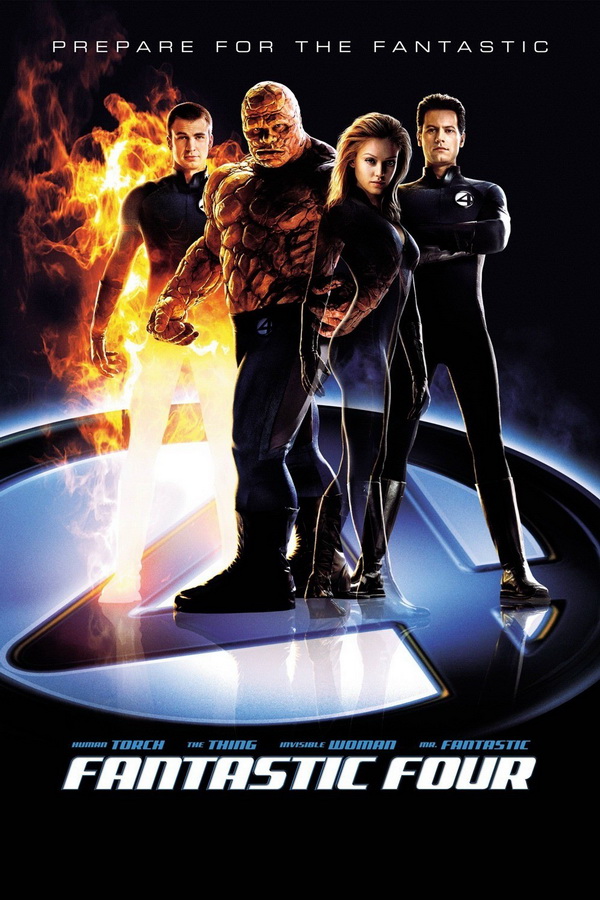
Fantastic Four Font
FantasyFantastic Four is a 2015 superhero film based on the Marvel Comics superhero team of the same name. It follows the team as they gain their powers and must come together to stop a former friend turned enemy from destroying Earth.
The theatrical release poster of the "Fantastic Four" movie features a font similar to Alphabet & Type's Fantastic Four Movie font. You can download the font for free, which is available in capital letters only with regular and italic styles.